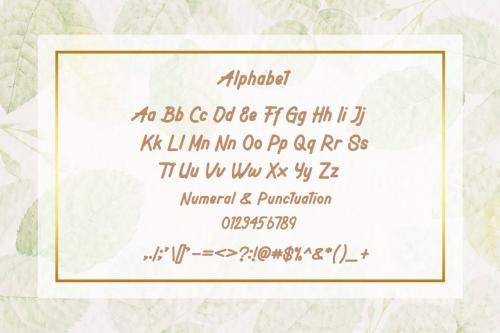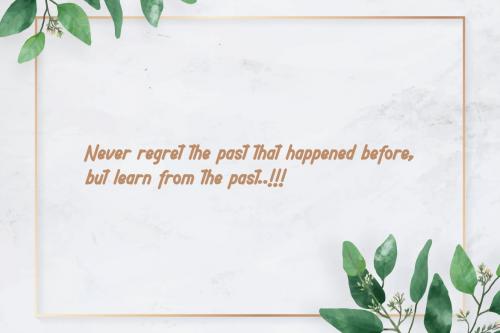
Efanthara Handwritten Font
Proudly present our new product **Efanthara Font**
**Efanthara Font** is a modern and authentic font. Perfect for both professional and branding needs of a product. This font is suitable for any branding project like quotes, logo, blog header, poster, banding, letter, invitation, stationery, etc... Designed as a versatile and flexible that can be used on a range of projects and mediums. outstanding in a wide range of contexts.
Uppercase